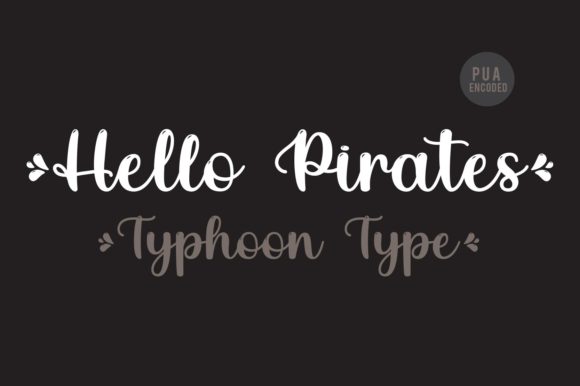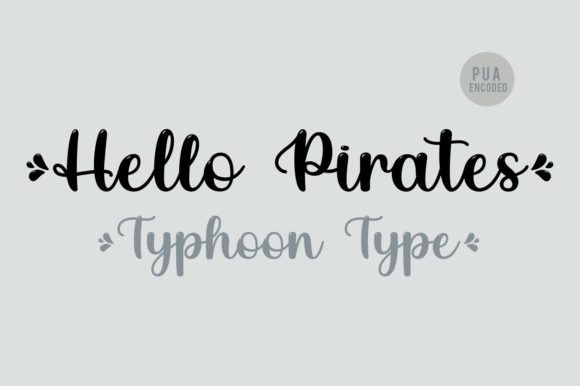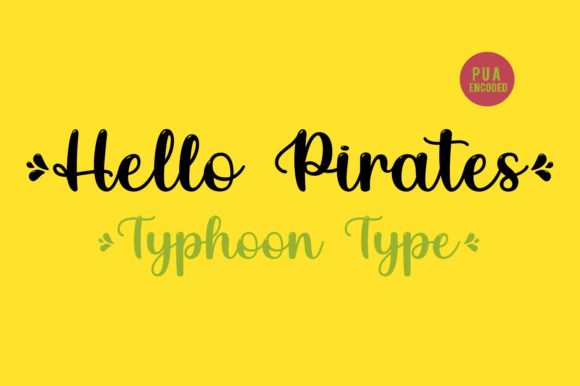
About Hello Pirates Font
Hello Pirates is a captivating and timeless handwritten font that brings a touch of adventure and charm to your designs. With its unique and beautiful letterforms, this font is an excellent choice for creating eye-catching logos, branding materials, and quotes.
The distinctiveness of Hello Pirates lies in its handcrafted feel, adding a personal touch to your designs. Each letter is carefully designed to have its own unique flair, giving your text a sense of character and liveliness. The irregularities and imperfections in the letterforms evoke a sense of authenticity and human touch, making your design come alive with personality.
This font is particularly well-suited for creating eye-catching logos. Its combination of playfulness and timelessness allows it to stand out and make a memorable impression. Whether you’re designing for a pirate-themed brand or simply want to add a touch of adventure and whimsy to your logo, Hello Pirates offers a great solution.
Branding materials, such as business cards, packaging, and social media graphics, can also benefit from the charm of Hello Pirates. Its handcrafted aesthetic adds warmth and approachability, making it easy for your brand to connect with your audience. It captures attention and stands out from the crowd, giving your brand a distinctive visual identity.
Quotes and inspirational messages become even more captivating when rendered in Hello Pirates. The unique touch of each letter adds a sense of authenticity and emotion to the text, making it more impactful and engaging. Whether you’re creating quote graphics for social media or designing prints for home decor, Hello Pirates brings an extra layer of visual appeal to your words.
In conclusion, Hello Pirates is a lovely and timeless handwritten font that adds a unique and beautiful touch to your designs. Its versatility makes it suitable for creating eye-catching logos, branding materials, and quotes. Embrace the charm and adventure of Hello Pirates and let it bring your designs to life with its captivating letterforms.